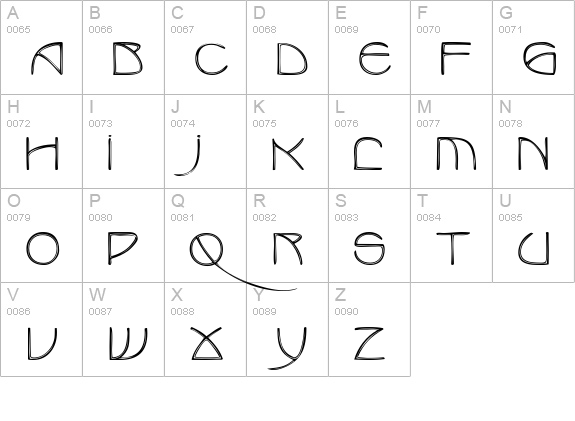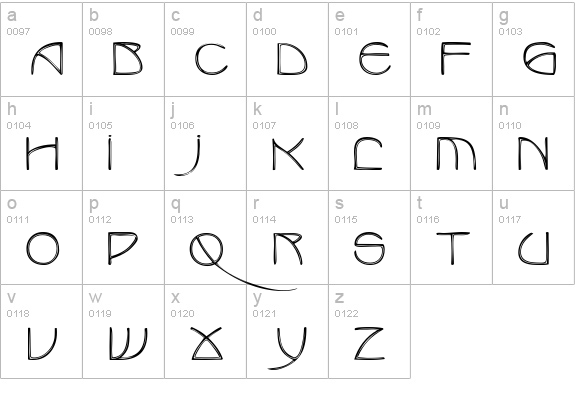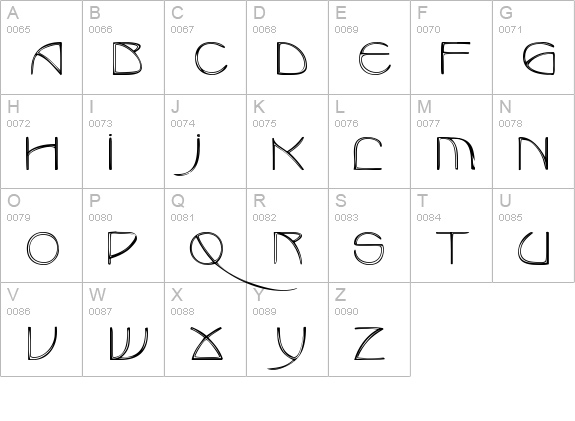
CroateDisplayCaps Font Details
CroateDisplayCaps is a stylish and modern display font that exudes sophistication and elegance. With its sleek lines and unique letterforms, this font is sure to make a statement in any design project. Perfect for headlines, logos, and branding materials, CroateDisplayCaps adds a touch of class to any layout. What makes CroateDisplayCaps even more appealing is that it is available for free download at FontsMarket.com. This means that you can easily access this stunning font and use it in your projects without any cost. Whether you're a professional designer or a hobbyist looking to enhance your creations, CroateDisplayCaps is the perfect choice for adding a touch of flair to your work. Download it today and elevate your designs with this exceptional font.